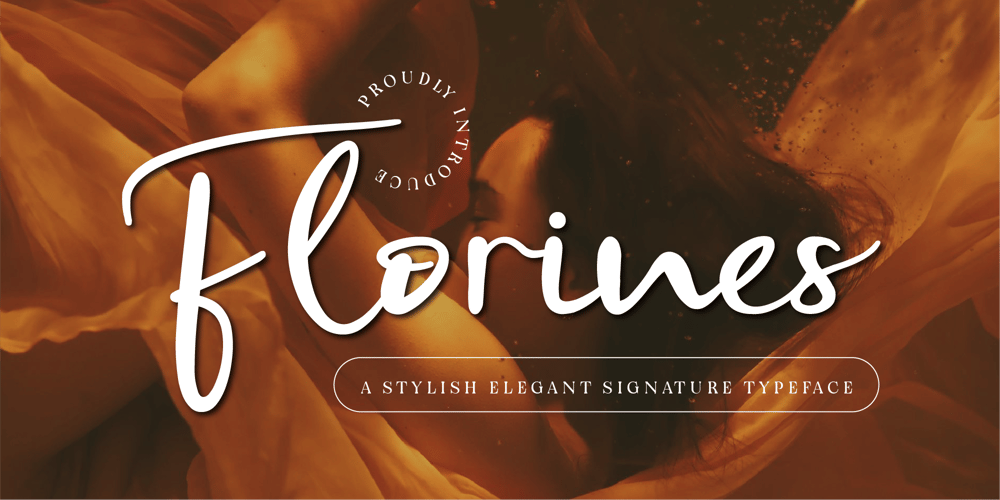
CF Florines
CF Florines font
CF Florines Font Family was designed by Gilang Mei Nugraha, Frederik Aristaputra and published by Creatifont Studio. CF Florines contains 1 styles and family package options. Florines is an elegant handwritten font with a whimsical, signature-inspired charm. Its flowing, natural strokes blend sophistication with a playful edge, evoking a sense of authenticity and personal touch. Ideal for branding, logos, wedding stationery, or stylish editorial designs, Florines captures the balance between refined elegance and creative spontaneity. Whether for formal or lighthearted projects, this font brings a sense of individuality and grace to your designs.A SUMMARY OF WHAT’S INCLUDED:- Standard Character A-Z, a-z, 0-9, Punctuation & symbols- Regular- Multilingual Support- Alternates and Ligatures Support- Simple installation- Accessible in Adobe Creative Suite (Ai, Ps, Id, etc.) even work on Microsoft Word.- PUA Encoded Characters – Fully accessible without additional design software.🌟If you come across any issues or notice anything we might have overlooked while using this product, please feel free to reach out to us. We greatly value your feedback as it helps us enhance and refine our products. Thank you!